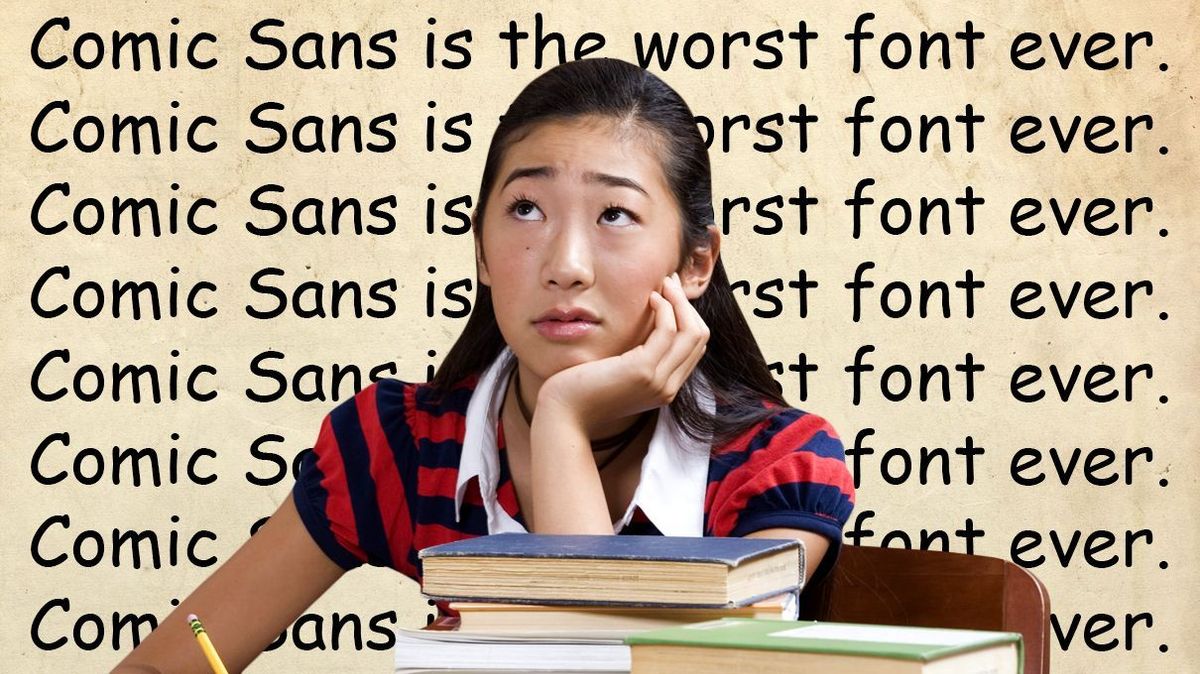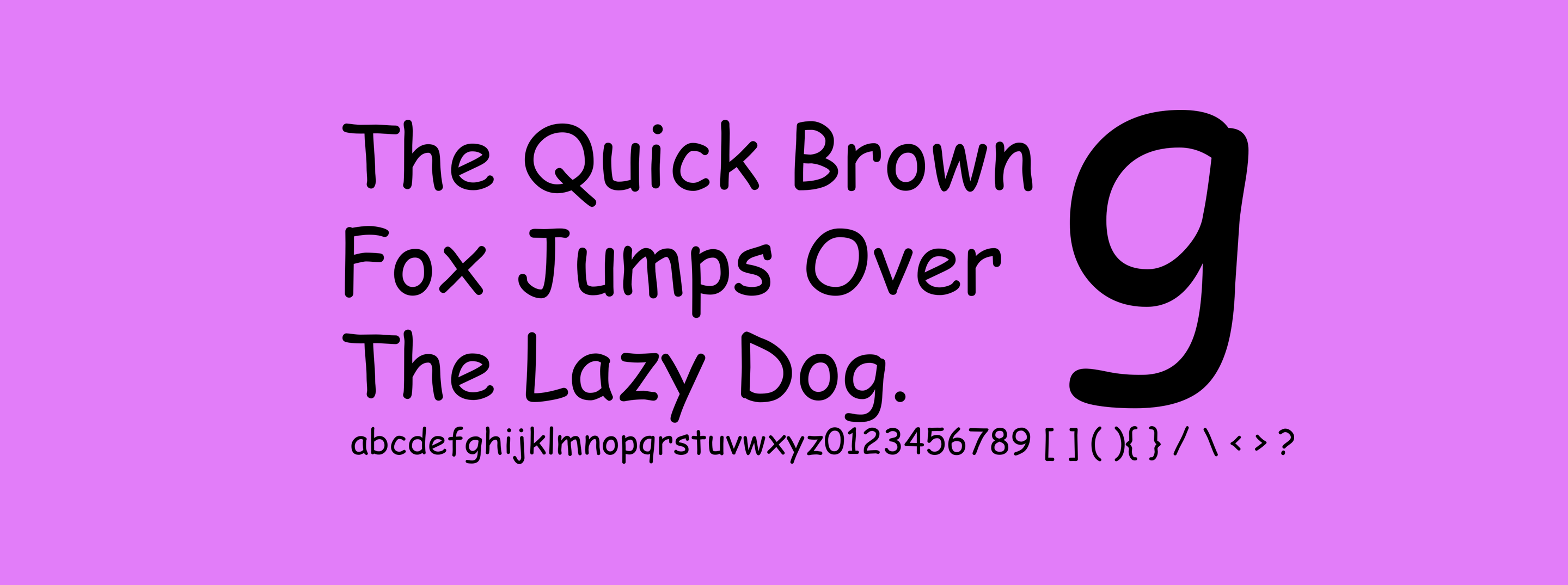
Comic Sans Font For Dyslexia . When you type in comic sans you get pages like “fuck no comic sans”, which has racked up more than 11,000 likes. If you want to know how much they dislike it, just look at tumblr. More importantly, what characteristics make a. natascha frensch, a graphic designer at the royal college of art, produced a font known as read regular in 2003 and the british dyslexia association also. despite it being widely considered as a gift to dyslexic students in the classroom, people outside of schools don’t like comic sans much. is comic sans really easier for dyslexic viewers to read than other typefaces? while comic sans has been touted as a font choice worth considering for dyslexic readers, it has its limitations. The irregular design of the letters makes it easier to. try not to shudder, but comic sans is often recommended for folks with dyslexia.
despite it being widely considered as a gift to dyslexic students in the classroom, people outside of schools don’t like comic sans much. If you want to know how much they dislike it, just look at tumblr. The irregular design of the letters makes it easier to. is comic sans really easier for dyslexic viewers to read than other typefaces? natascha frensch, a graphic designer at the royal college of art, produced a font known as read regular in 2003 and the british dyslexia association also. More importantly, what characteristics make a. try not to shudder, but comic sans is often recommended for folks with dyslexia. while comic sans has been touted as a font choice worth considering for dyslexic readers, it has its limitations. When you type in comic sans you get pages like “fuck no comic sans”, which has racked up more than 11,000 likes.
Comic Sans Font For Dyslexia When you type in comic sans you get pages like “fuck no comic sans”, which has racked up more than 11,000 likes. try not to shudder, but comic sans is often recommended for folks with dyslexia. is comic sans really easier for dyslexic viewers to read than other typefaces? When you type in comic sans you get pages like “fuck no comic sans”, which has racked up more than 11,000 likes. If you want to know how much they dislike it, just look at tumblr. while comic sans has been touted as a font choice worth considering for dyslexic readers, it has its limitations. despite it being widely considered as a gift to dyslexic students in the classroom, people outside of schools don’t like comic sans much. natascha frensch, a graphic designer at the royal college of art, produced a font known as read regular in 2003 and the british dyslexia association also. The irregular design of the letters makes it easier to. More importantly, what characteristics make a.
Comic Sans The DyslexiaFriendly Font Comic Sans Font For Dyslexia despite it being widely considered as a gift to dyslexic students in the classroom, people outside of schools don’t like comic sans much. is comic sans really easier for dyslexic viewers to read than other typefaces? If you want to know how much they dislike it, just look at tumblr. The irregular design of the letters makes it. Comic Sans Font For Dyslexia.
Comic Sans Font Bold Style Alphabet Letters Kids Vector Art Etsy Comic Sans Font For Dyslexia while comic sans has been touted as a font choice worth considering for dyslexic readers, it has its limitations. More importantly, what characteristics make a. despite it being widely considered as a gift to dyslexic students in the classroom, people outside of schools don’t like comic sans much. natascha frensch, a graphic designer at the royal college. Comic Sans Font For Dyslexia.
Comic Sans Might Just be the Best Font for People with Dyslexia Eye Comic Sans Font For Dyslexia More importantly, what characteristics make a. while comic sans has been touted as a font choice worth considering for dyslexic readers, it has its limitations. natascha frensch, a graphic designer at the royal college of art, produced a font known as read regular in 2003 and the british dyslexia association also. If you want to know how much. Comic Sans Font For Dyslexia.
Comic Sans and Dyslexia Can the Font Help Dyslexics Read? Comic Sans Font For Dyslexia The irregular design of the letters makes it easier to. while comic sans has been touted as a font choice worth considering for dyslexic readers, it has its limitations. More importantly, what characteristics make a. try not to shudder, but comic sans is often recommended for folks with dyslexia. is comic sans really easier for dyslexic viewers. Comic Sans Font For Dyslexia.
[todayilearned] TIL that the infamous font Comic Sans is easier to read Comic Sans Font For Dyslexia try not to shudder, but comic sans is often recommended for folks with dyslexia. is comic sans really easier for dyslexic viewers to read than other typefaces? The irregular design of the letters makes it easier to. despite it being widely considered as a gift to dyslexic students in the classroom, people outside of schools don’t like. Comic Sans Font For Dyslexia.
Pin on Art Comic Sans Font For Dyslexia natascha frensch, a graphic designer at the royal college of art, produced a font known as read regular in 2003 and the british dyslexia association also. try not to shudder, but comic sans is often recommended for folks with dyslexia. while comic sans has been touted as a font choice worth considering for dyslexic readers, it has. Comic Sans Font For Dyslexia.
Comic Sans Might Just be the Best Font for People with DyslexiaEye on Comic Sans Font For Dyslexia More importantly, what characteristics make a. while comic sans has been touted as a font choice worth considering for dyslexic readers, it has its limitations. When you type in comic sans you get pages like “fuck no comic sans”, which has racked up more than 11,000 likes. If you want to know how much they dislike it, just look. Comic Sans Font For Dyslexia.
The Most Useful Fonts for Dyslexic Users + Comic Sans Dyslexia Comic Sans Font For Dyslexia More importantly, what characteristics make a. despite it being widely considered as a gift to dyslexic students in the classroom, people outside of schools don’t like comic sans much. If you want to know how much they dislike it, just look at tumblr. try not to shudder, but comic sans is often recommended for folks with dyslexia. . Comic Sans Font For Dyslexia.
comic sans font dyslexia Comic Sans Font For Dyslexia When you type in comic sans you get pages like “fuck no comic sans”, which has racked up more than 11,000 likes. while comic sans has been touted as a font choice worth considering for dyslexic readers, it has its limitations. If you want to know how much they dislike it, just look at tumblr. despite it being. Comic Sans Font For Dyslexia.